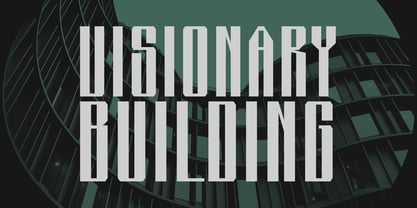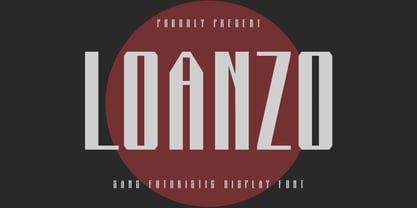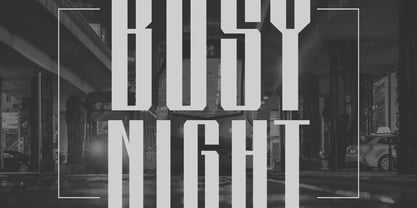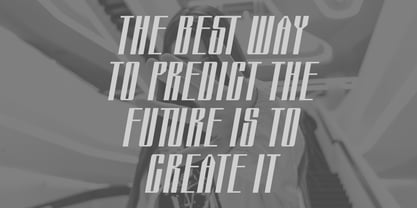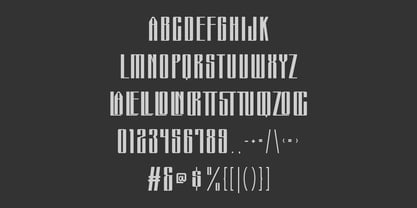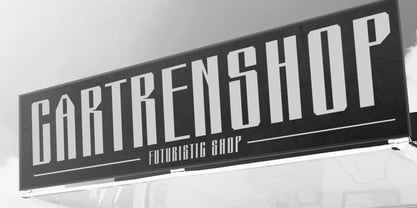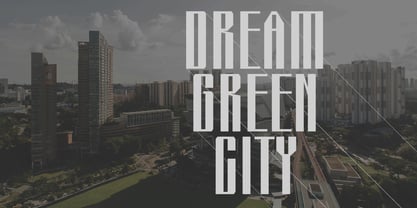
MC Loanzo
by Maulana Creative
The MC Loanzo Font Family was designed by Gilang Maulana and published by Maulana Creative. MC Loanzo contains 1 styles. More about this family
Step into the future with Loanzo, a bold, striking, and meticulously crafted Sans Futuristic Display Font. Designed for maximum impact, Loanzo embodies the essence of modern sophistication, blending sharp, clean lines with a powerful geometric structure. Why Loanzo is Your Next Essential Font: - Unmistakable Presence: Its ultra-tall, condensed letterforms instantly command attention, making it perfect for headlines, logotypes, and impactful visual communication. - Futuristic Vibe: Inspired by science fiction, modern architecture, and digital interfaces, Loanzo is the go-to choice for projects requiring a sleek, high-tech, or cyberpunk aesthetic. - Versatile Impact: While its display nature shines on large-scale applications, its clean design maintains legibility, making it suitable for fashion branding, gaming titles, music album art, cinematic media, and cutting-edge editorial layouts.
Designers: Gilang Maulana
Foundry: Maulana Creative